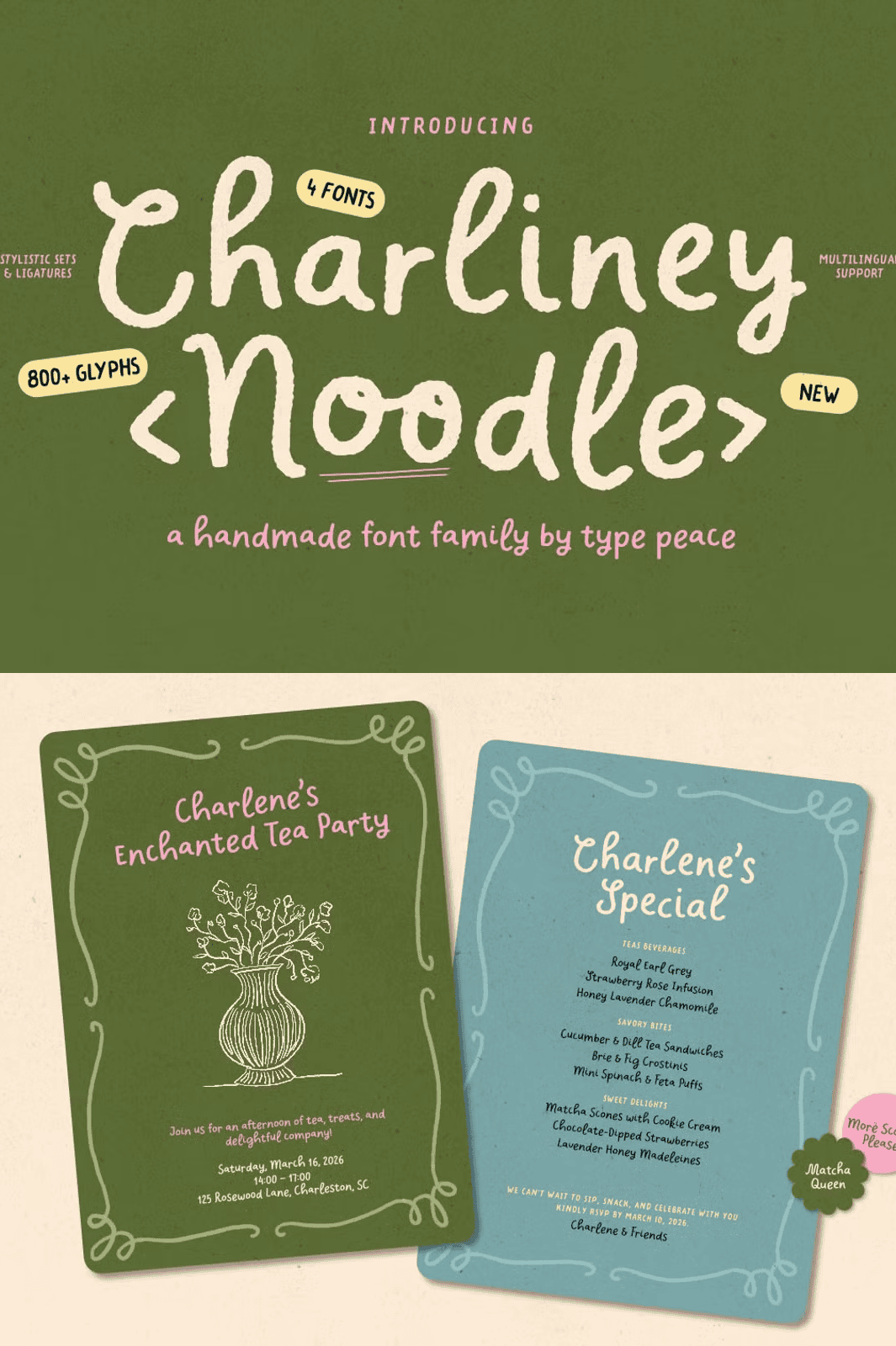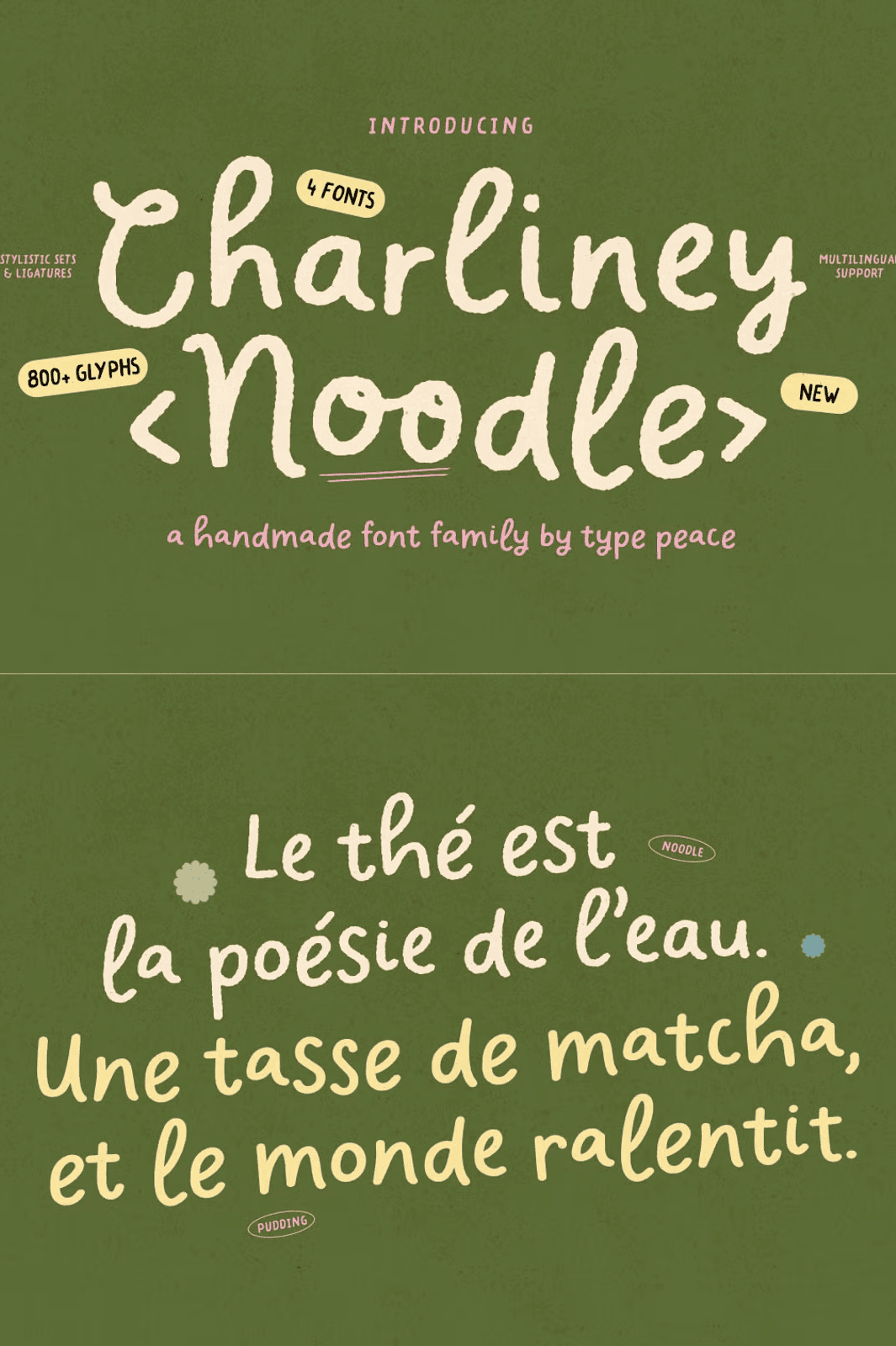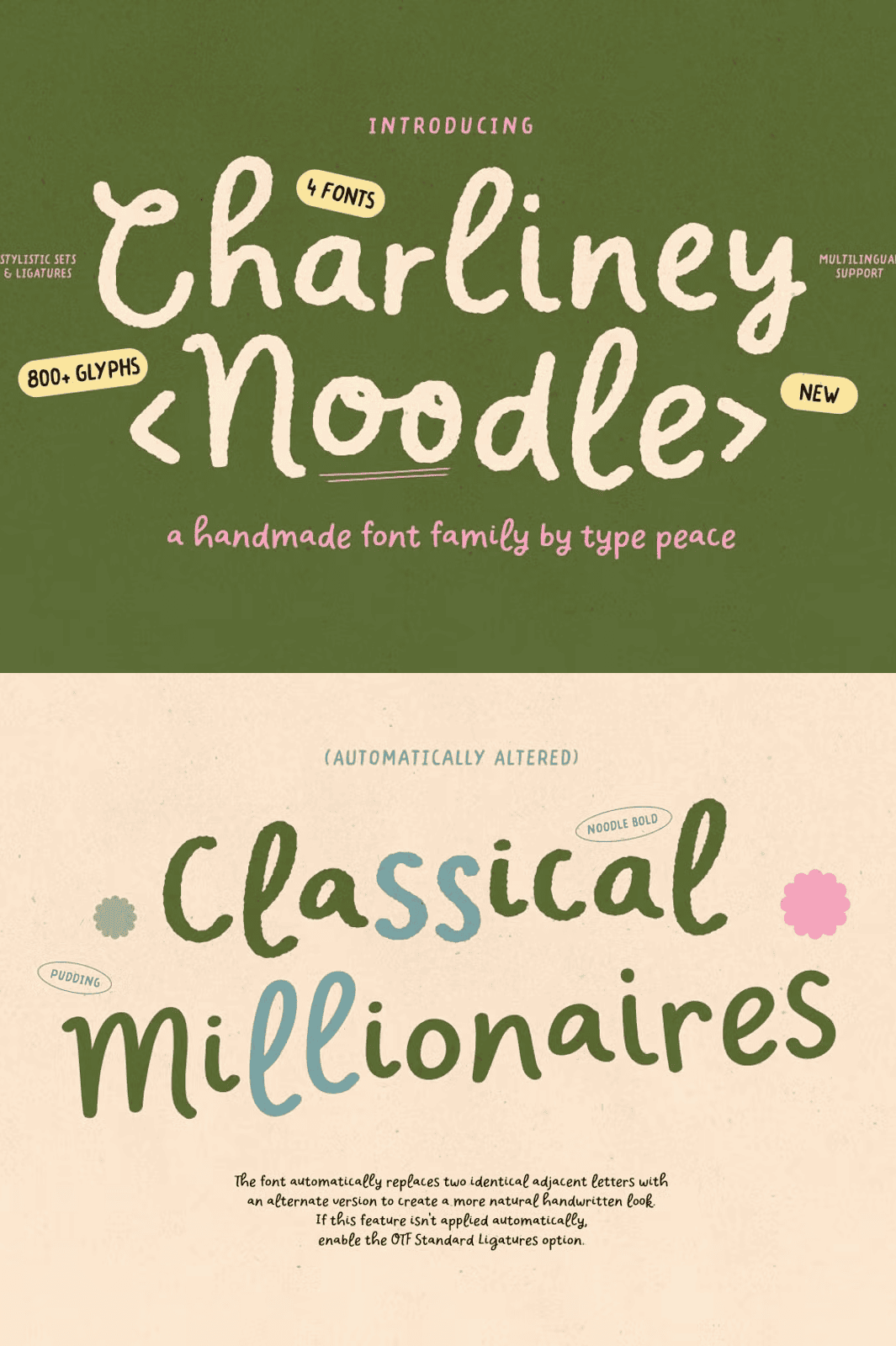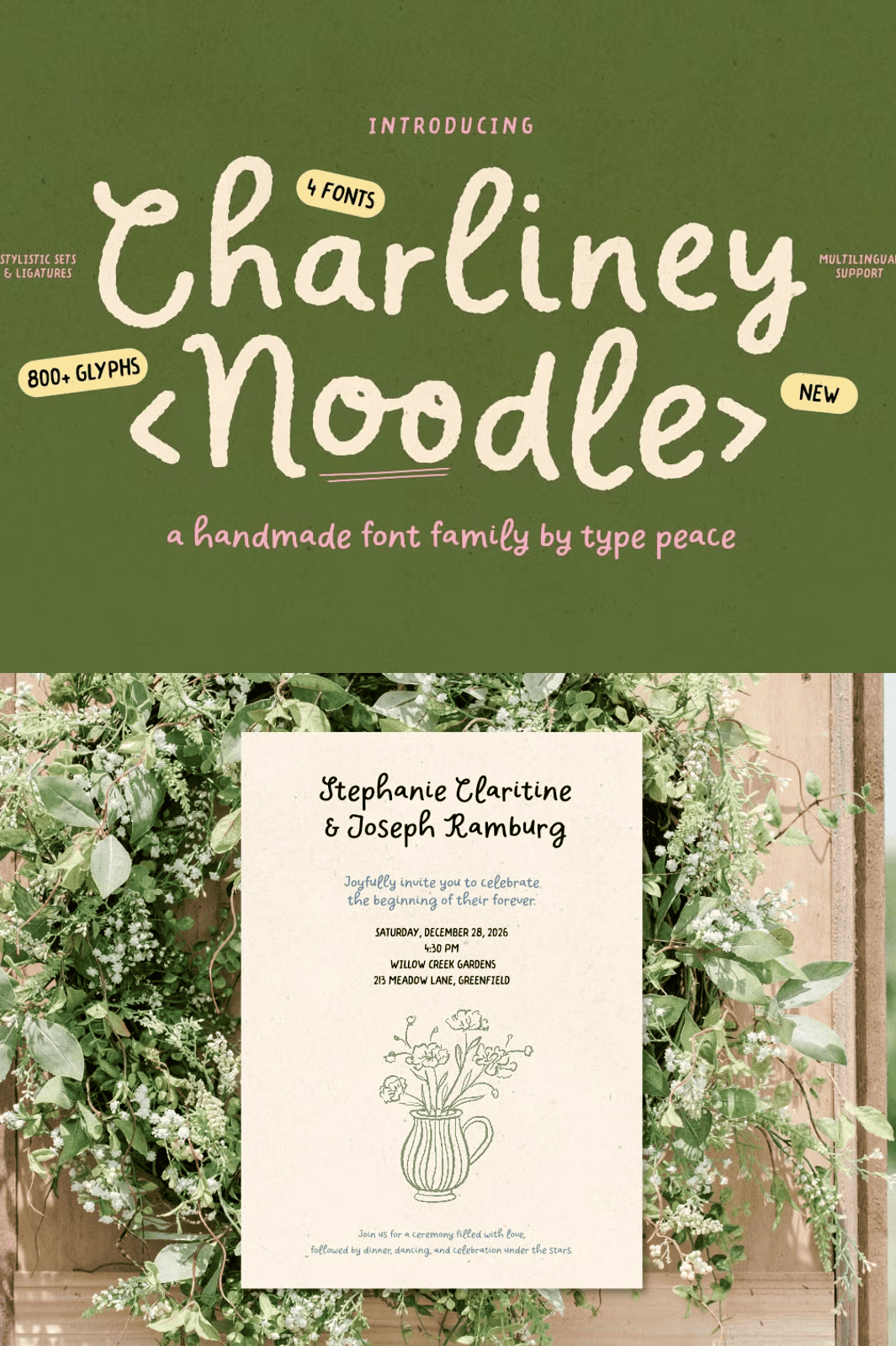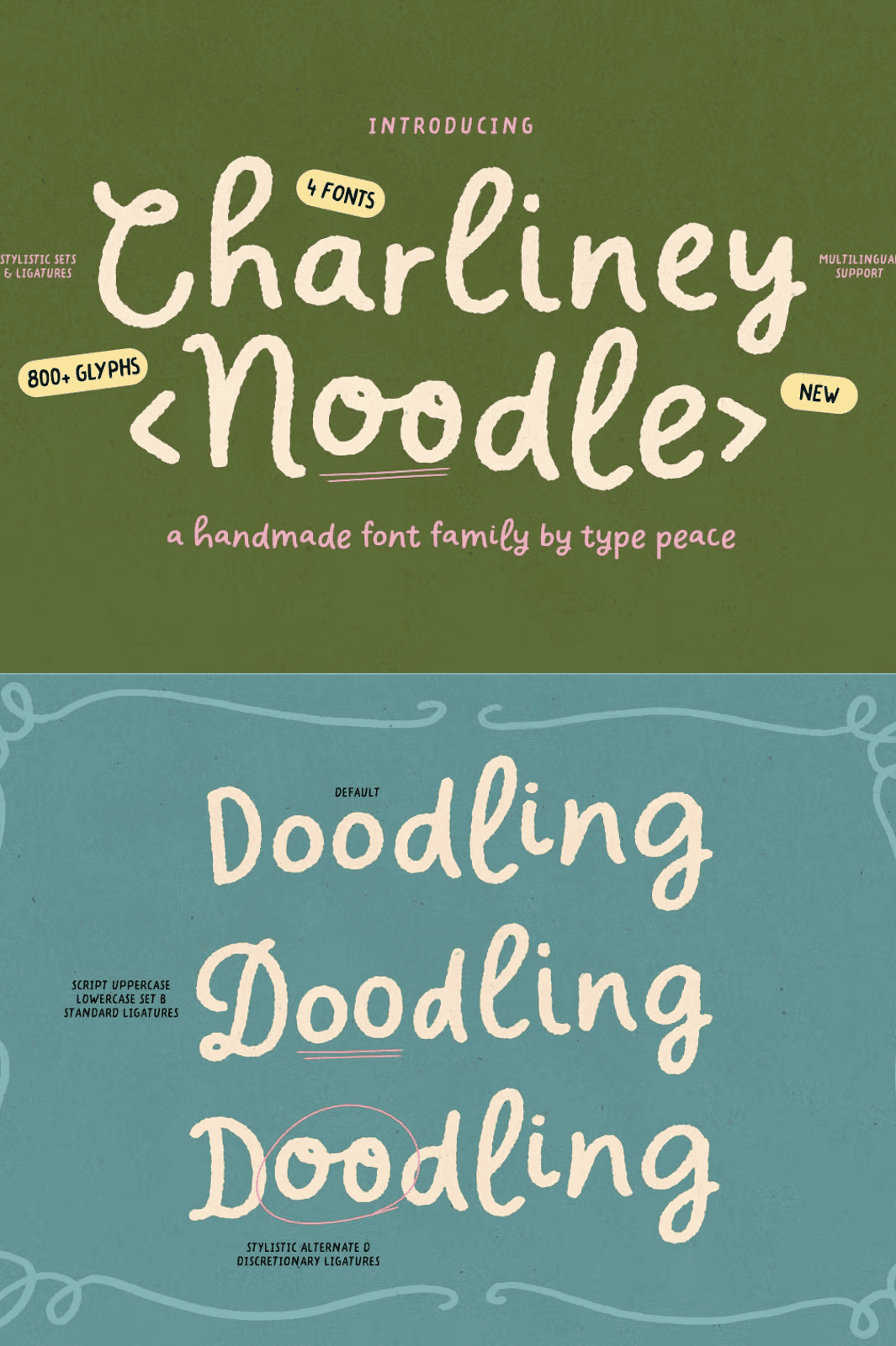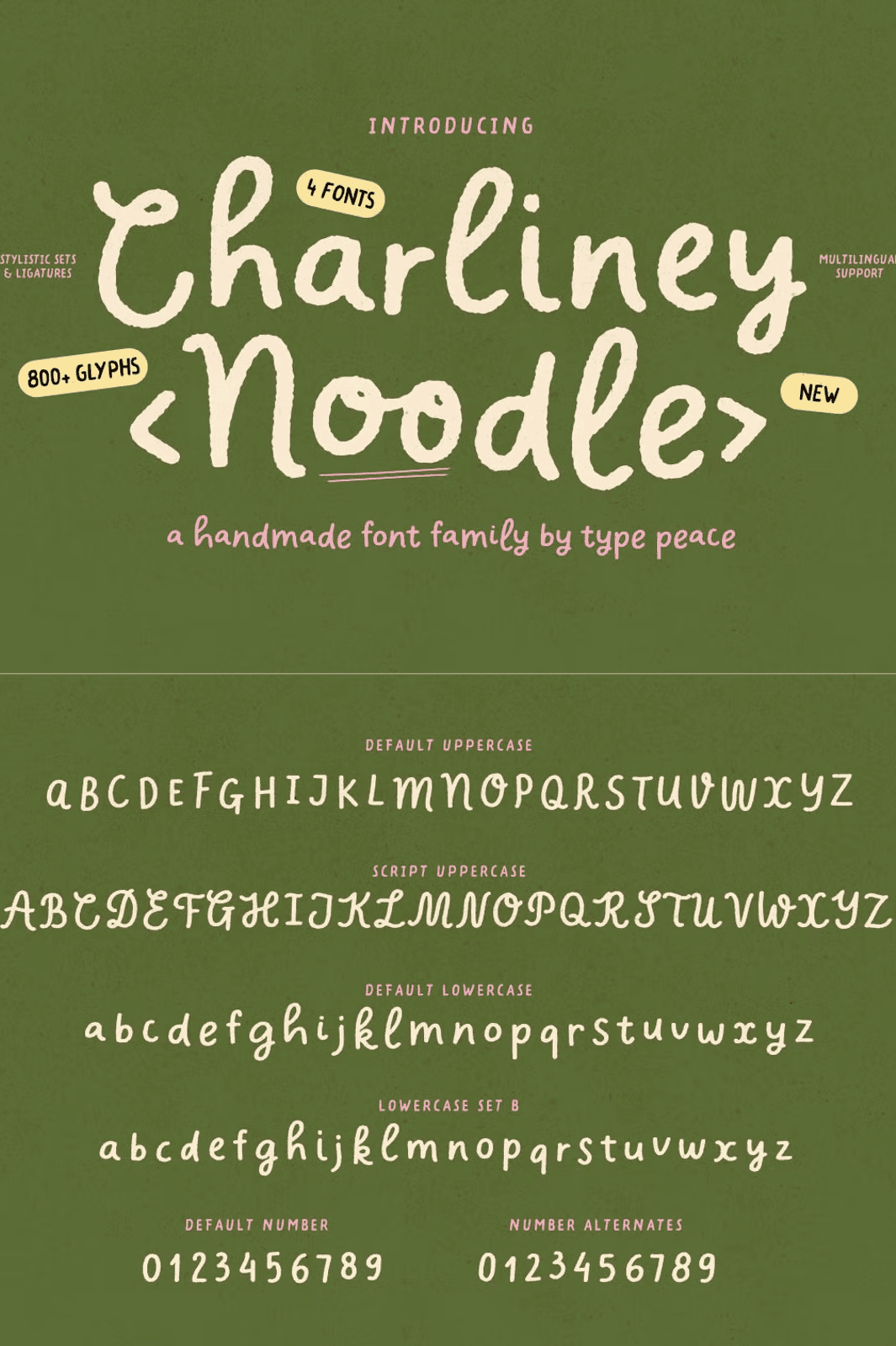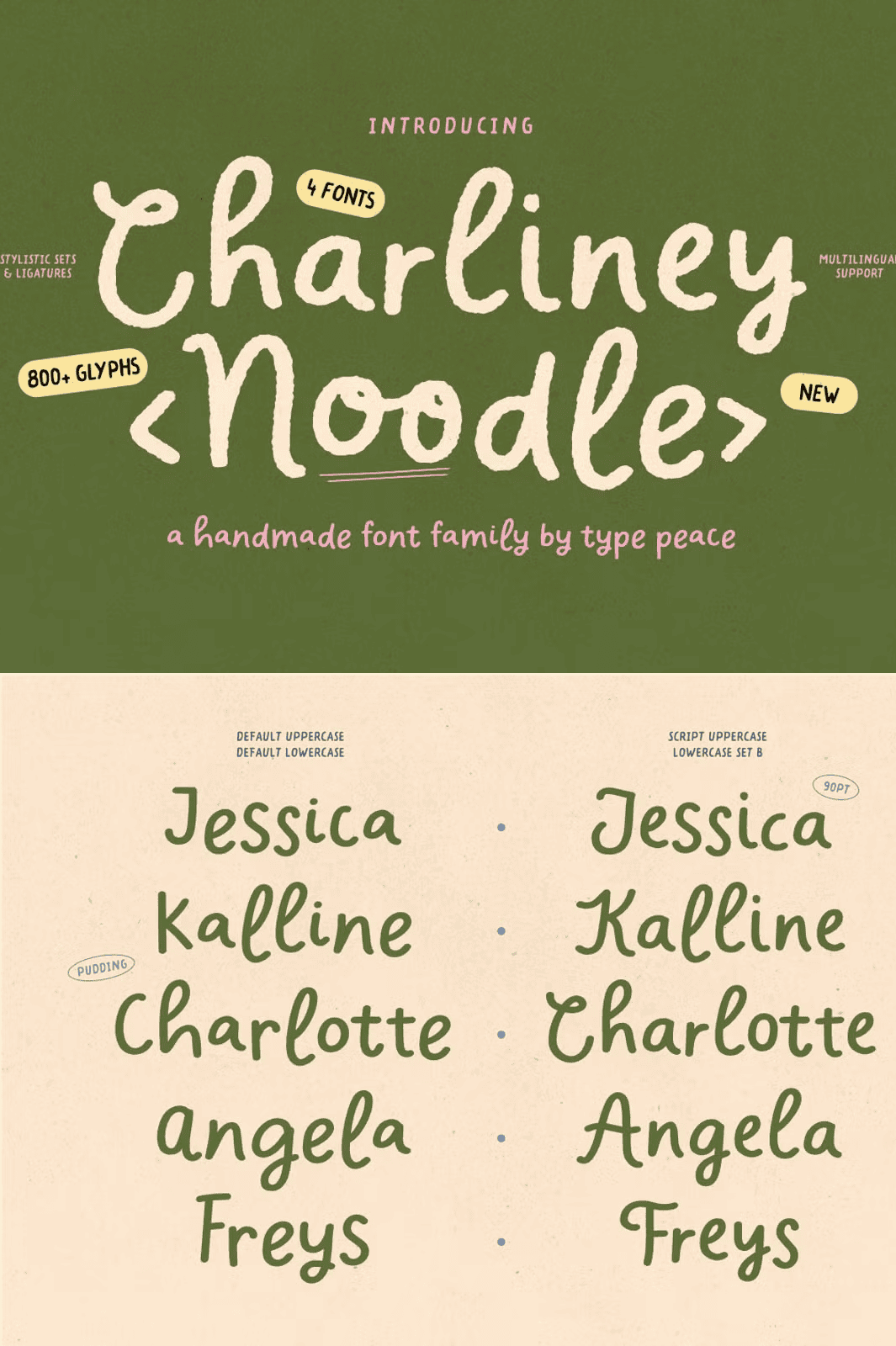
CHARLINEY | Handwritten Font Family
Embrace the Soul of Hand-Drawn Typography with Charliney
Charliney isn’t just a font it’s a celebration of human touch in digital design. Crafted with care, this multilingual handwritten font family captures the natural flow of real penmanship, offering a fresh, artisanal voice for your creative projects. With four dynamic styles Pudding, Noodle, Pudding Bold, and Noodle Bold Charliney gives you the flexibility to convey personality, rhythm, and elegance across any design context.
This is not machine-perfect typography. This is *real* handwriting with subtle variations in stroke, spacing, and weight that make every word feel uniquely personal. Whether you’re designing for a boutique brand, wedding invitation, or editorial layout, Charliney adds an unmatched emotional depth that stands out in a sea of generic fonts.
The Magic of Automatic Ligatures: A Natural Handwriting Experience
One of the standout features of Charliney is its intelligent **automatic ligature system**. When two identical adjacent letters appear (e.g., “ll”, “tt”, “ss”), the font instantly replaces them with a stylized alternate version to mimic the natural flow of a hand-drawn pen.
This creates a seamless, organic look that feels handcrafted not forced. If the ligatures aren’t appearing as expected, ensure you’re using **OTF Standard Ligatures** in your design software. Enable this feature and let the magic unfold.
Rich Features for Designers Who Want More
Charliney delivers serious typographic power packed into a soft, expressive shape:
– **Default and Script Uppercase** — Elegant, varied capital forms for title and signature-style impact
– **Two sets of lowercase and numbers** — Extra stylistic variation for dynamic composition
– **Comprehensive marks and symbols** — Support for punctuation, currency, and special characters
– **Multilingual support** — Fully functional in English, Western European, Central European, South Eastern European, South American, Vietnamese, Esperanto, and Oceanian languages
– **Advanced Opentype features** — Includes ligatures, stylistic alternates, contextual forms, and more
– **800+ glyphs** — One of the most complete handwritten families in its class
Designed for Real Projects, Not Just Screens
Charliney is built to work across the full spectrum of design use cases:
– ✉️ Stationery and wedding invitations with emotional weight and charm
– 📦 Product packaging for artisanal brands, cosmetics, and food labels
– 🏷️ Branding for boutiques, lifestyle apps, and creative studios
– 📚 Editorial titles and magazine layouts that demand a human voice
– 🎉 Social media graphics, YouTube thumbnails, and digital posters with personality
No matter the medium, Charliney maintains its soul. Its character never fades even at small sizes or in printed formats.
Whether you’re a designer, entrepreneur, or content creator, Charliney gives you the tools to make work that feels alive. It’s the font for those who believe that design isn’t just about function it’s about feeling.